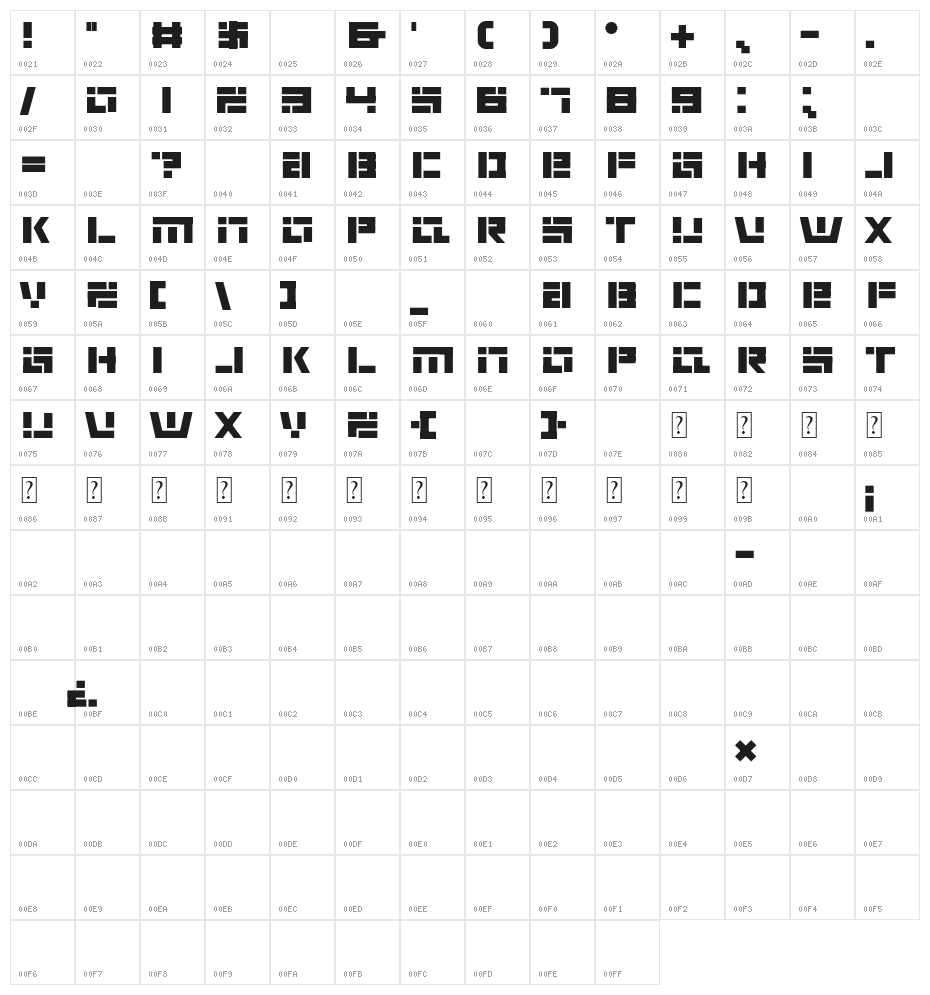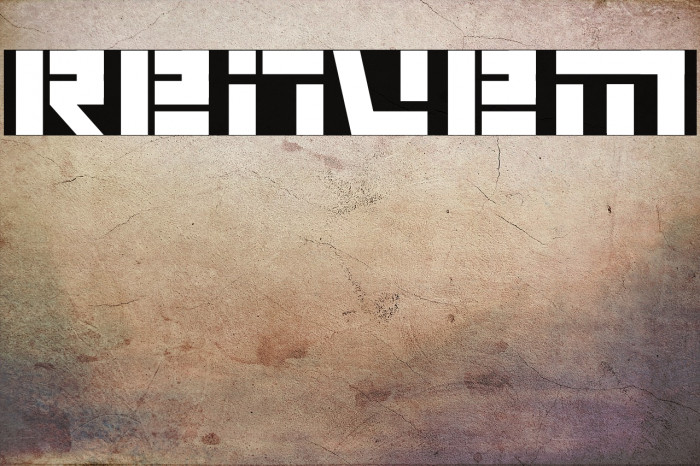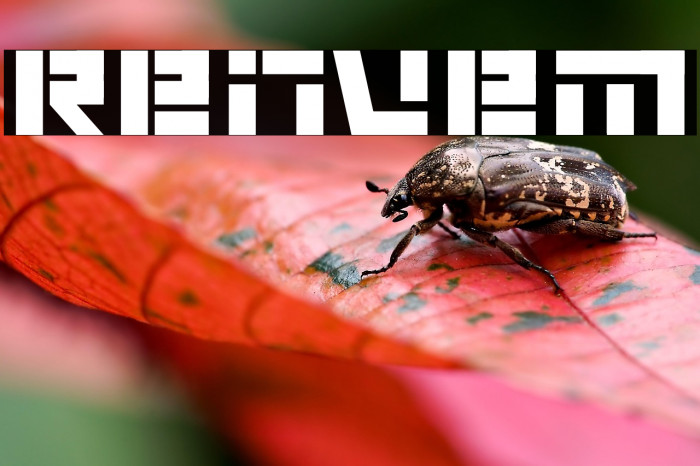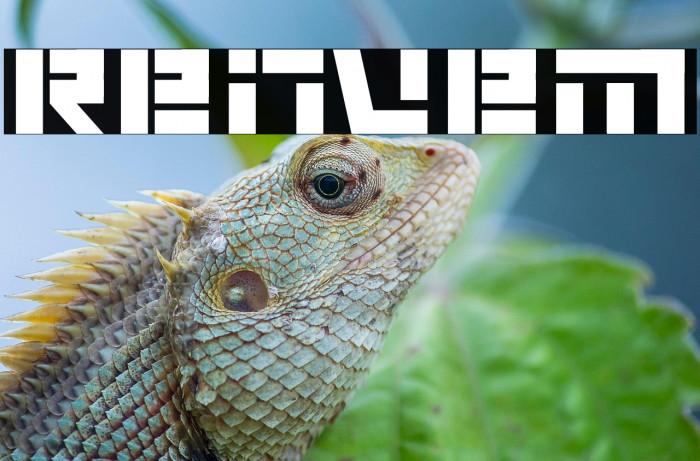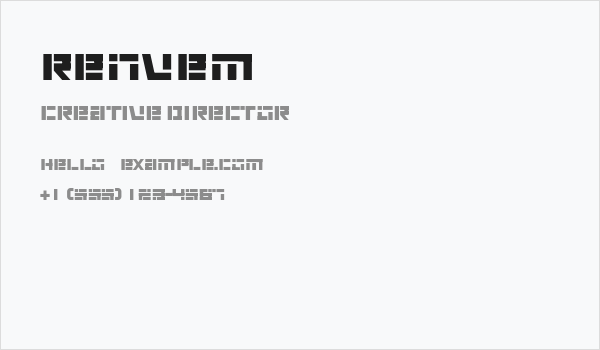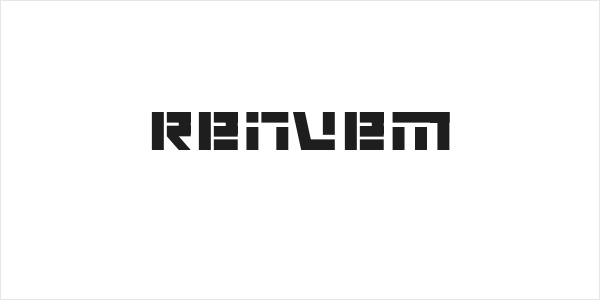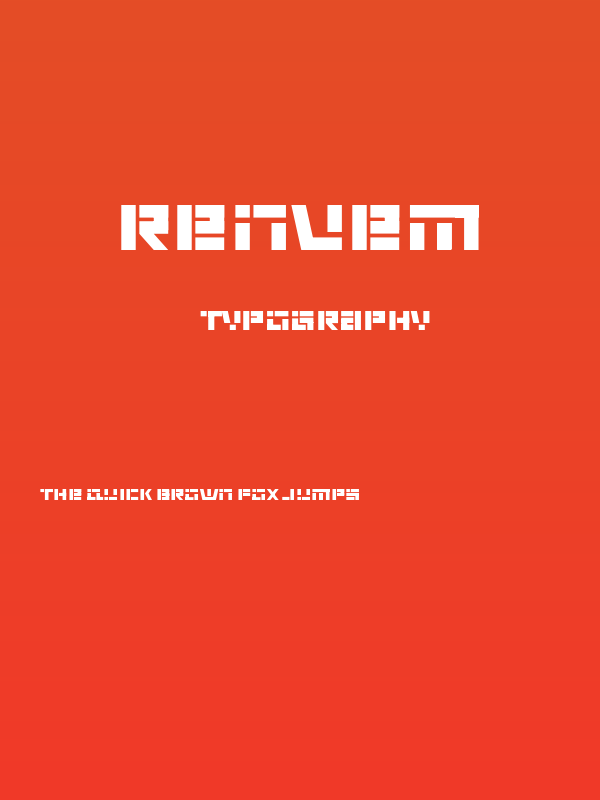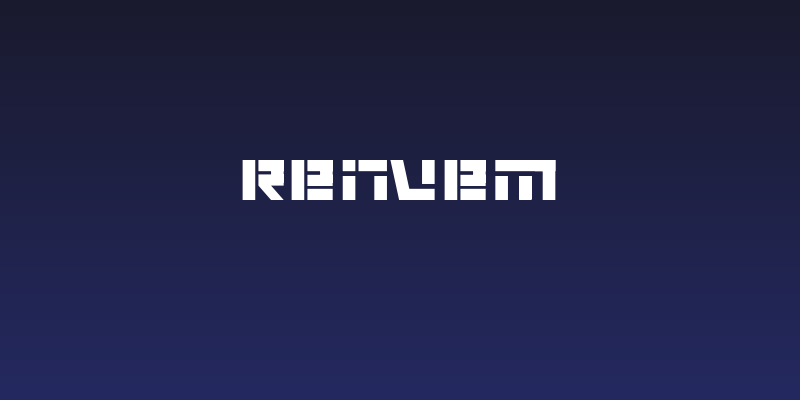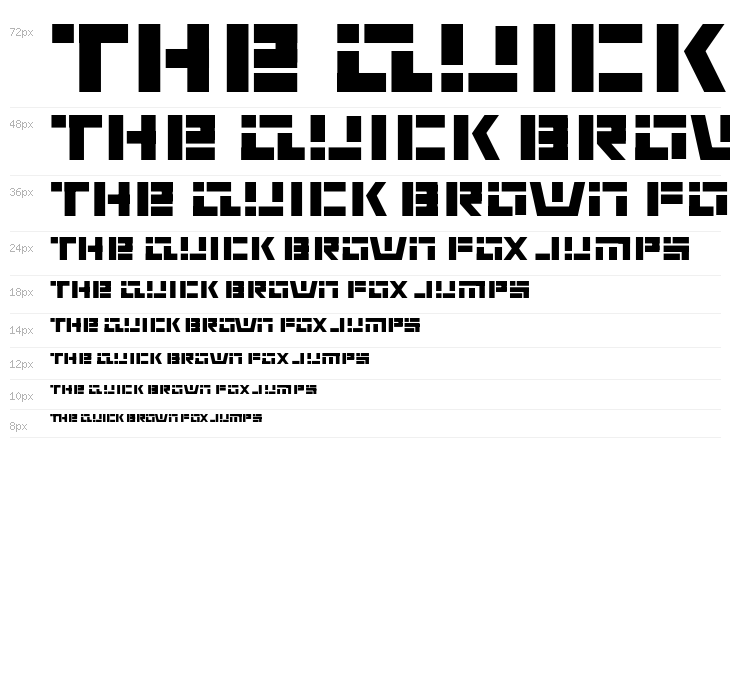
renvem Font
renvem Description
This font features a bold, geometric design with a futuristic and digital aesthetic. Each character is constructed with blocky, angular shapes, creating a sense of rigidity and strength. The letters are uniform in height and width, contributing to a cohesive and structured appearance. The font's distinct style is reminiscent of digital displays or stencil designs, making it ideal for projects that require a modern and technological feel. The characters are evenly spaced, ensuring readability while maintaining the font's unique style.
| Proposed Projects | Ideal for technology branding, digital interfaces, video game titles, and sci-fi themed projects. |